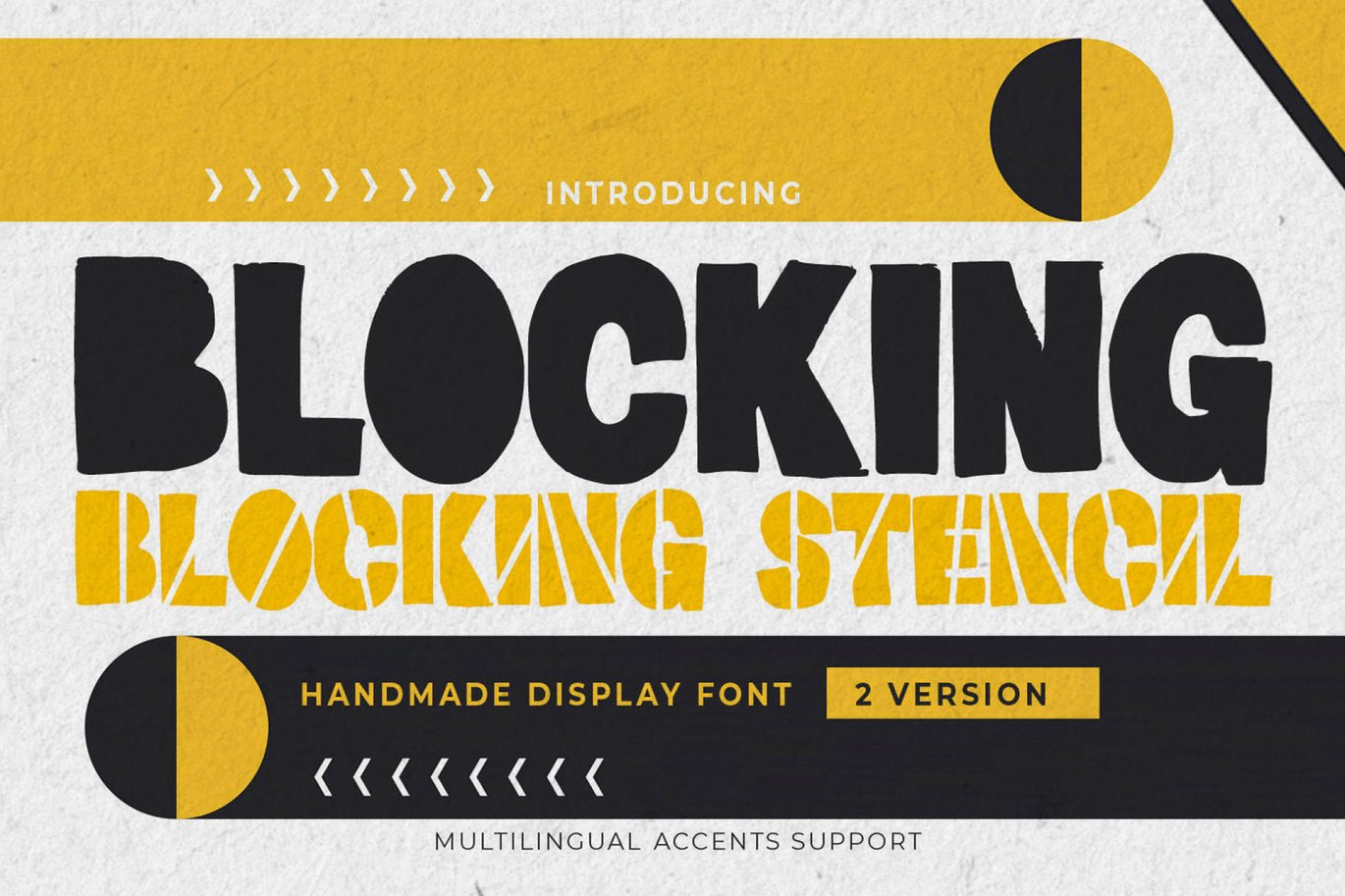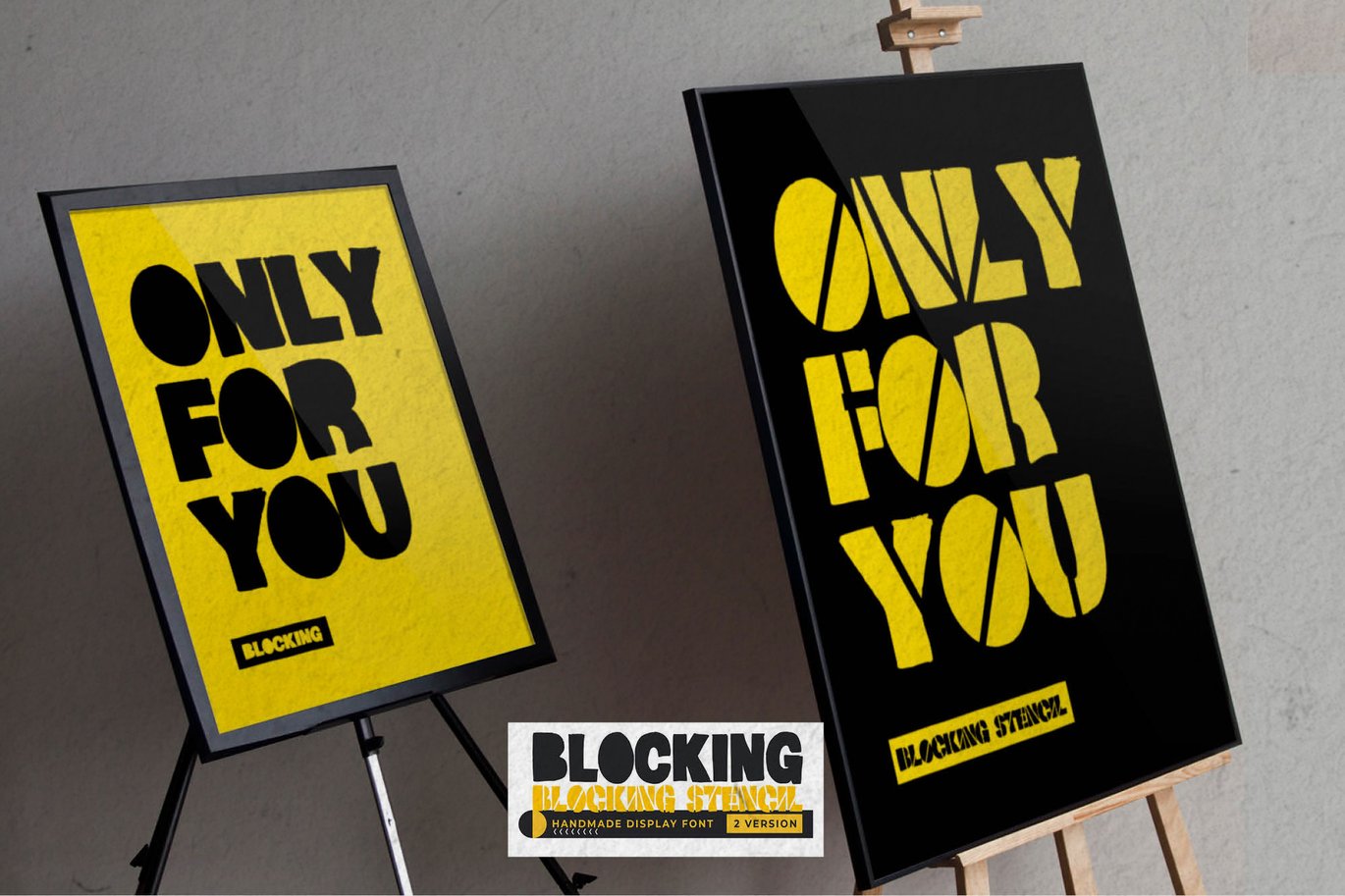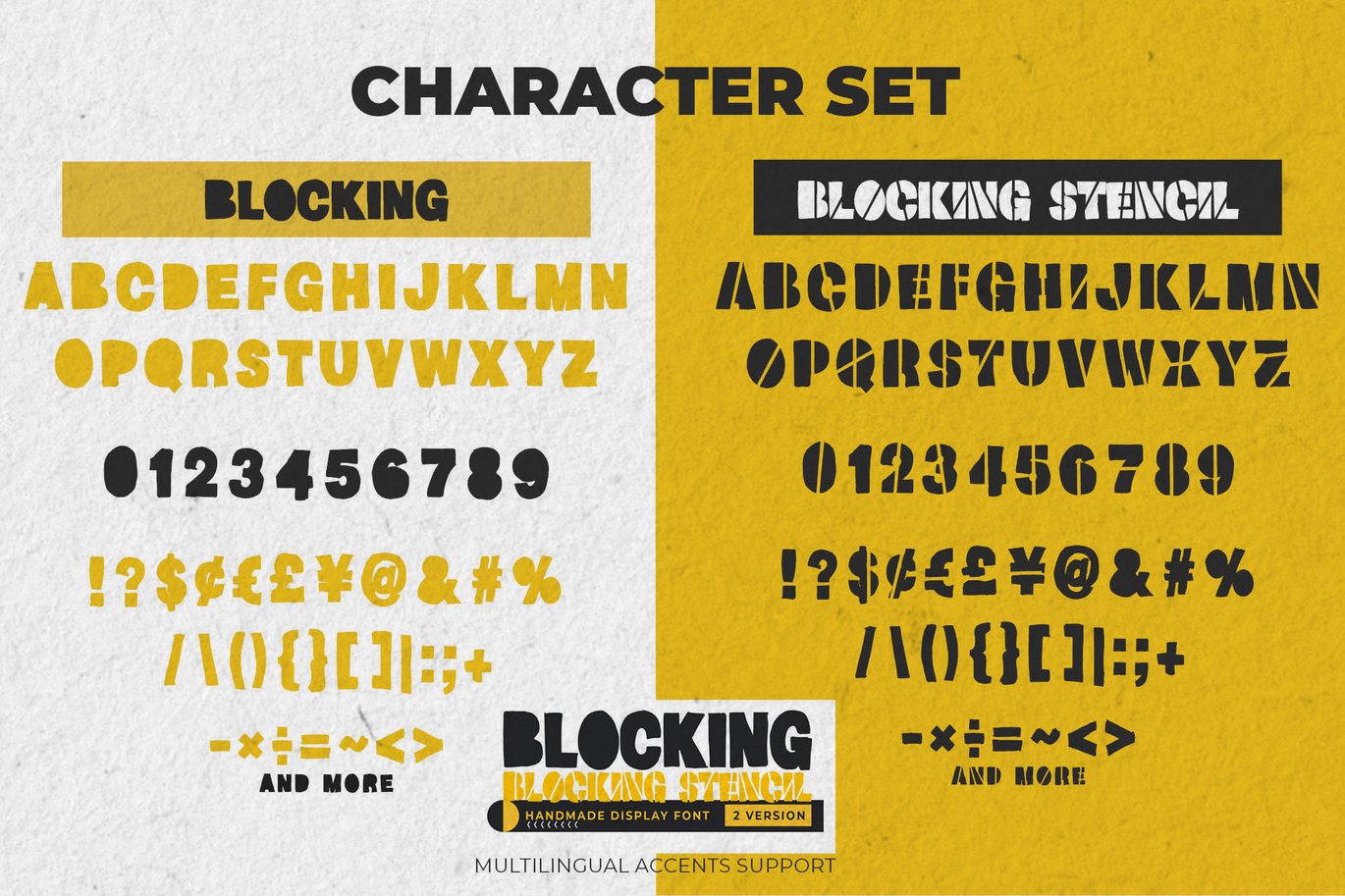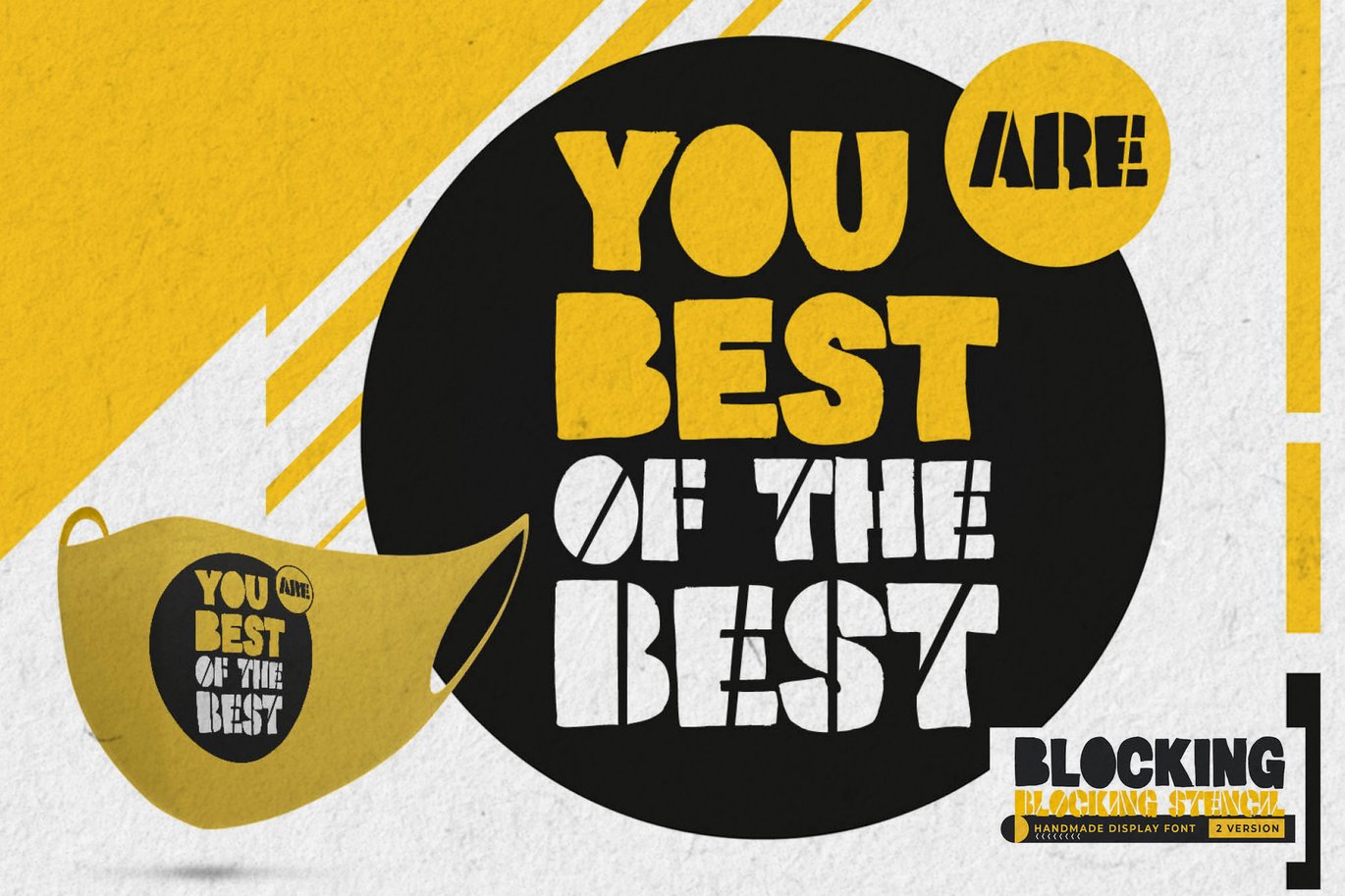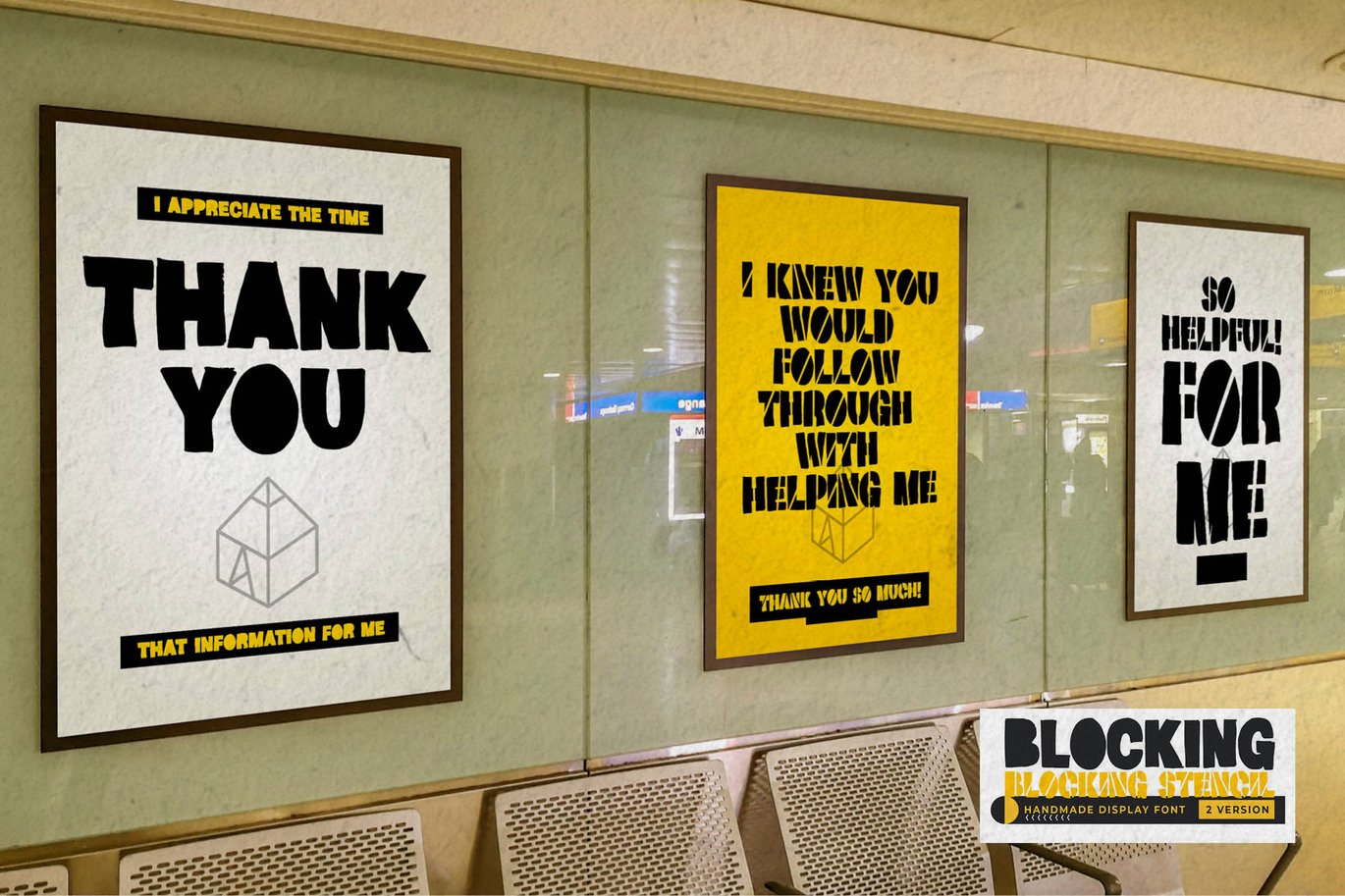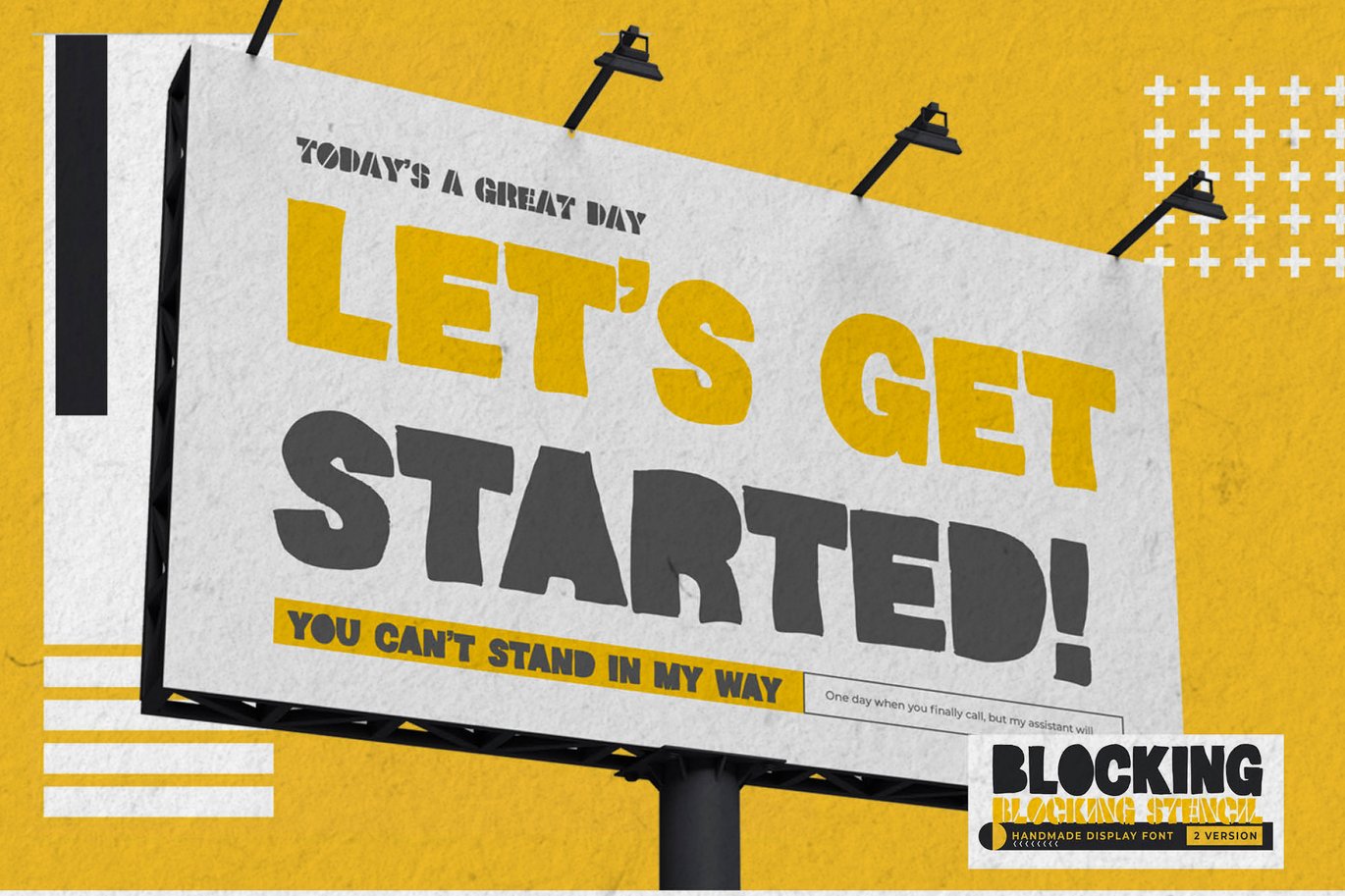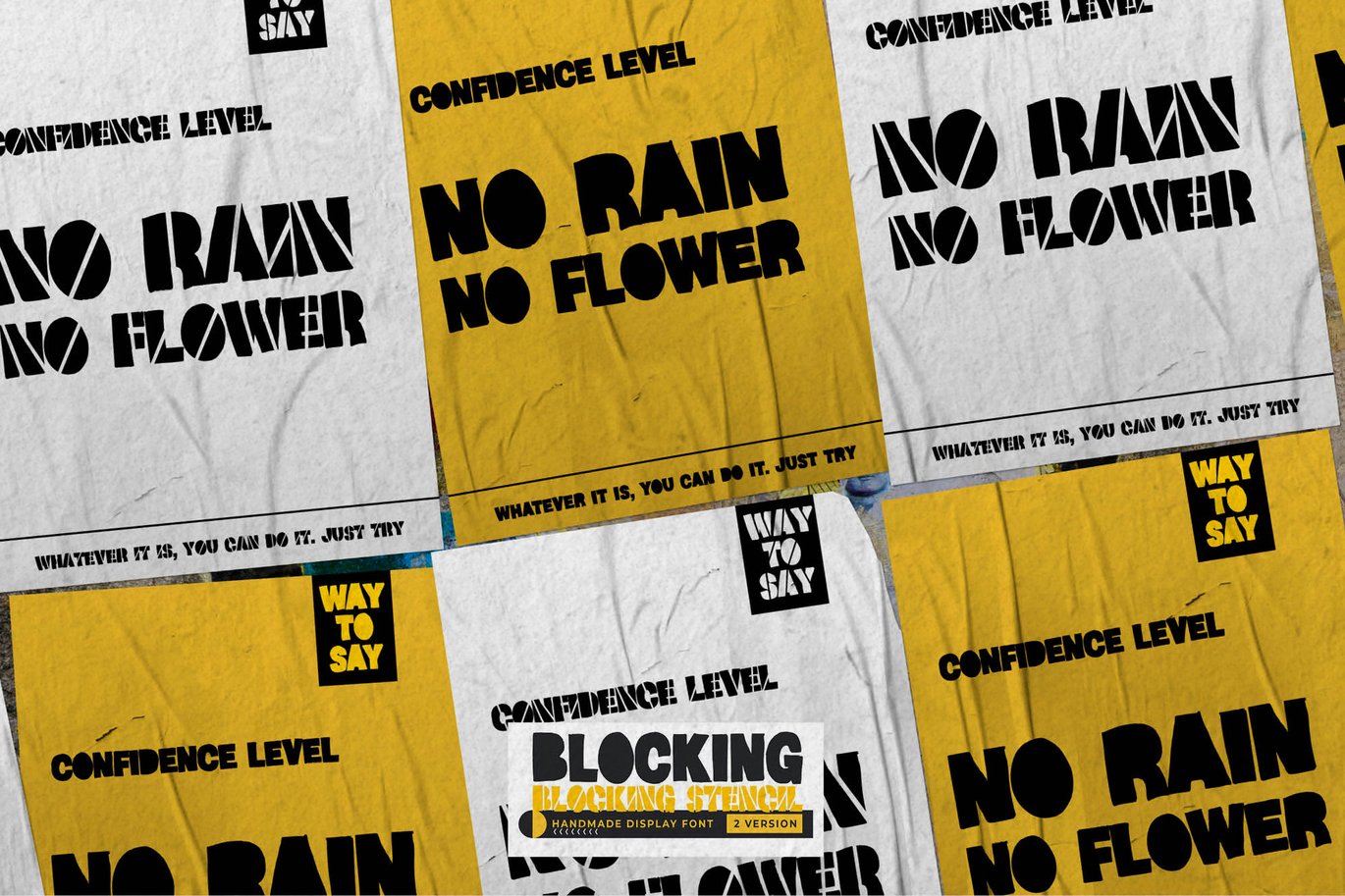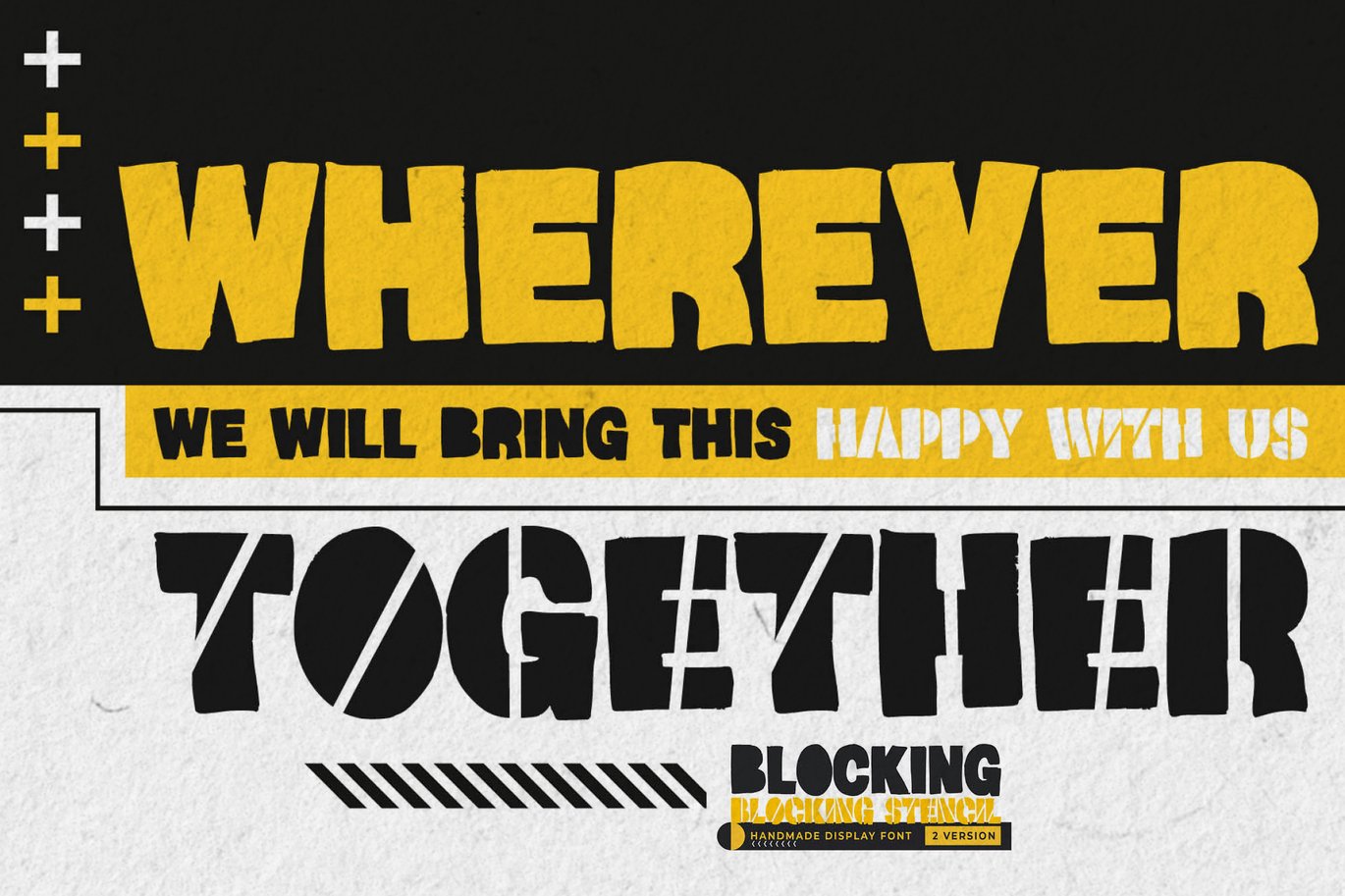
Blocking – Handmade Display Font
Introducing Blocking is a Handmade Display Font with a stylish touch inspired by the famous minimalist logo and Blocking has 2 Regular and Stencil styles is perfect for the purposes of designing templates, brochures, videos, advertising branding, logos and more.